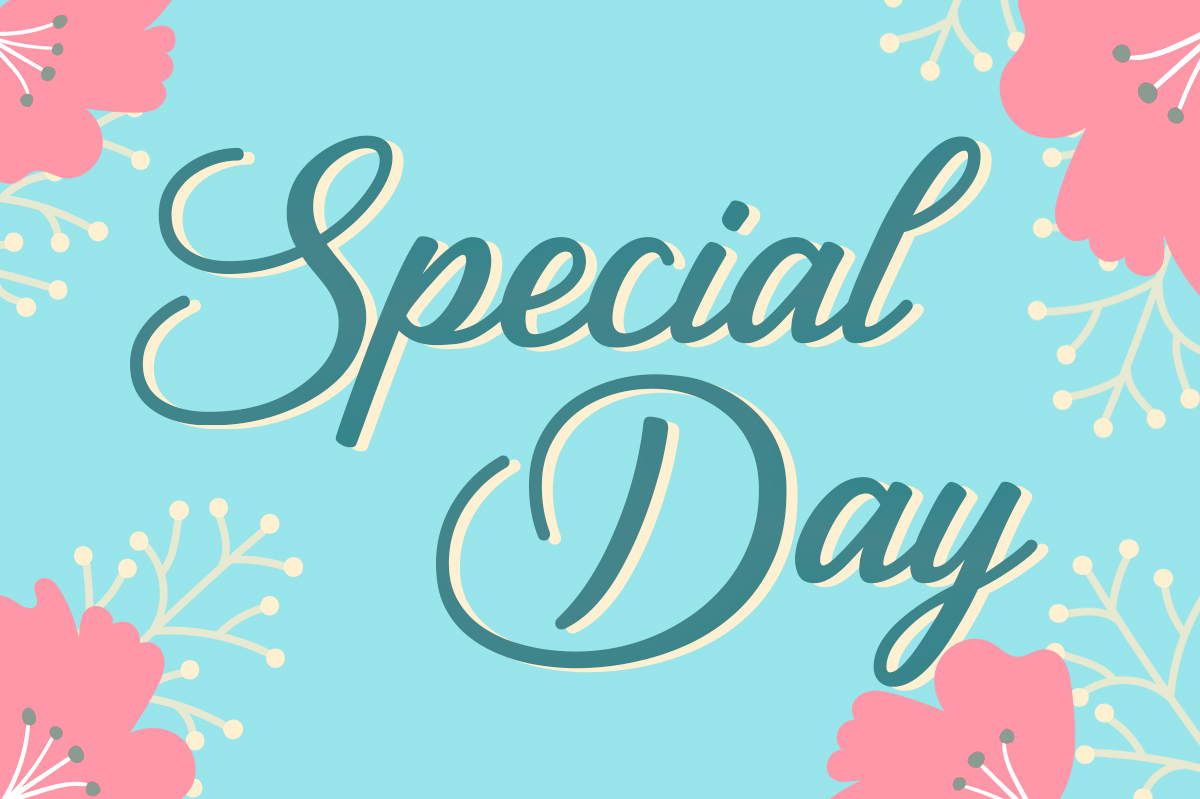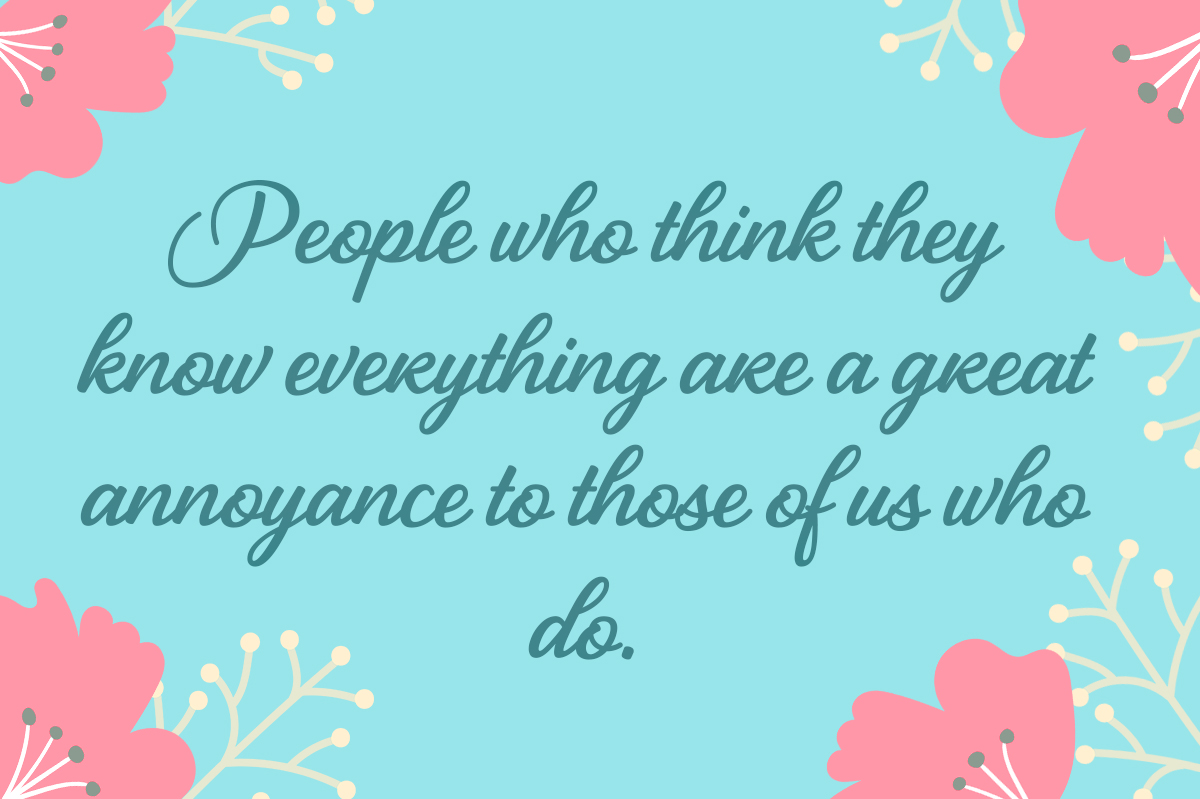
Special Day Font
About Special Day Font
Special Day is a gorgeous script font, suitable for a wide range of projects and designs. This classical yet fresh looking script font will give your designs a reliable and contemporary feel.